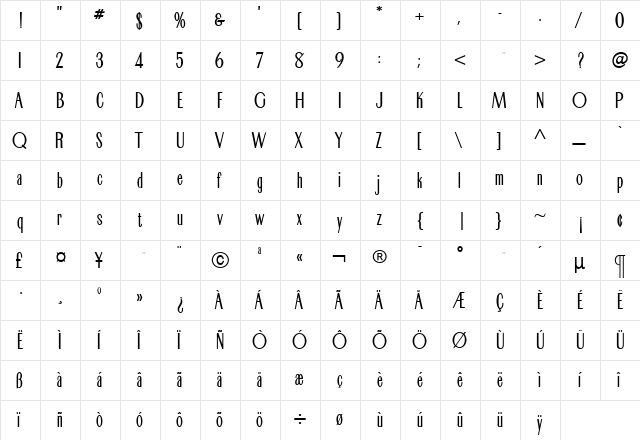
CameoHeavyline Roman
Design Context for CameoHeavyline Typeface
CameoHeavyline takes a measured approach to typography — its balanced proportions and neutral character make it a reliable workhorse for both digital and print work.
Pro Tip: Pair CameoHeavyline with a font of contrasting weight or personality to build a more expressive typographic hierarchy.